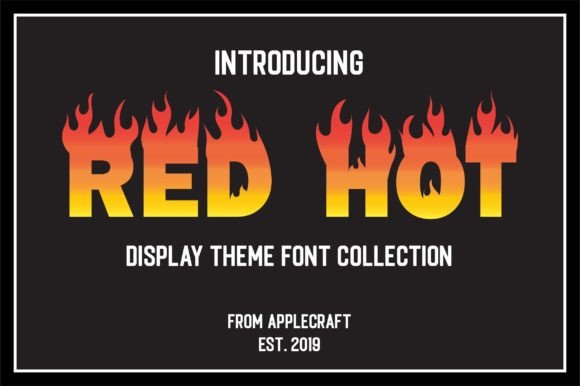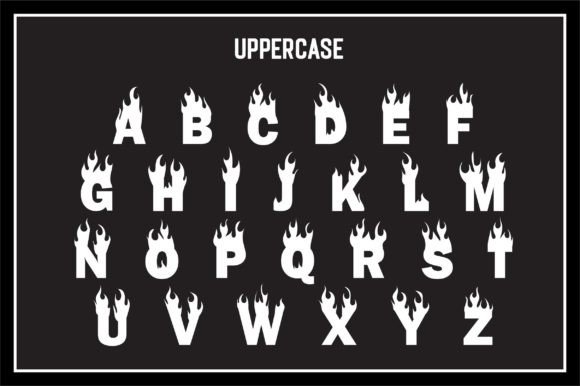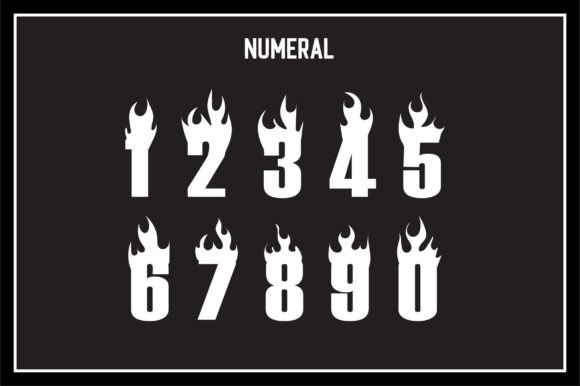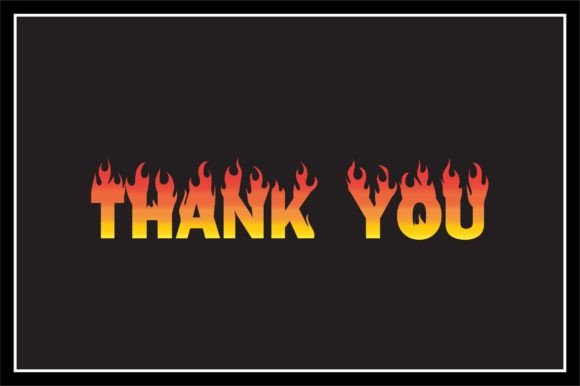
Red Hot Font
About the Red Hot Font
Explore the possibilities with Red Hot Font, a font that offers both beauty and functionality. Red Hot is a decorative font inspired by fire, perfect for quotes, shirt designs, websites, branding, children’s designs, SVG designs, blogs, logos, invitations, and more!
Red Hot’s bold, playful energy makes it ideal for headlines, short-form text on posters, and vibrant branding projects targeting younger demographics. It also excels in packaging design for products emphasizing fun or excitement. However, its decorative nature makes it unsuitable for body text or UI elements where readability is paramount. Long paragraphs set in Red Hot will be difficult to read.
Consider pairing Red Hot with a clean sans-serif like Open Sans for body copy or a classic serif like Garamond for a sophisticated contrast. For a more playful feel, a rounded geometric sans-serif such as Lato could work well. Avoid pairing it with other highly decorative fonts, which would create visual clutter.
Red Hot’s core personality is energetic and expressive; therefore, it’s best suited for brands that project a youthful, dynamic, and slightly rebellious image.
Red Hot Font Example